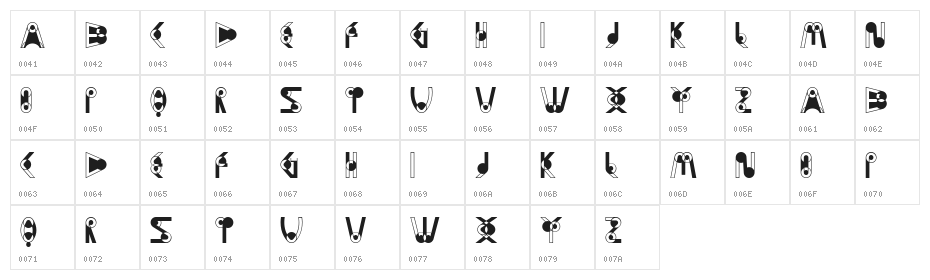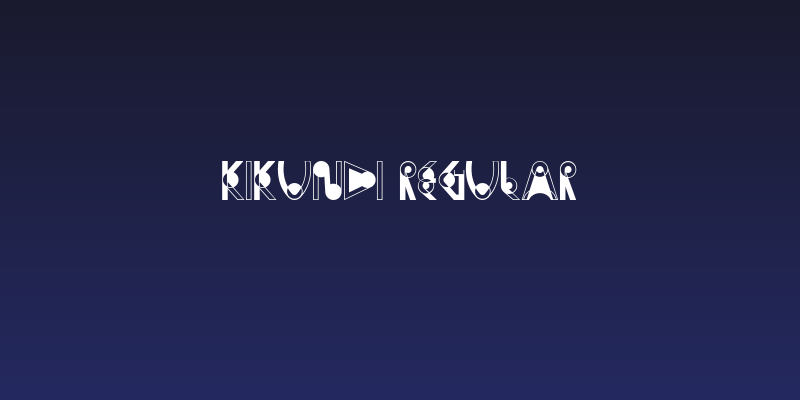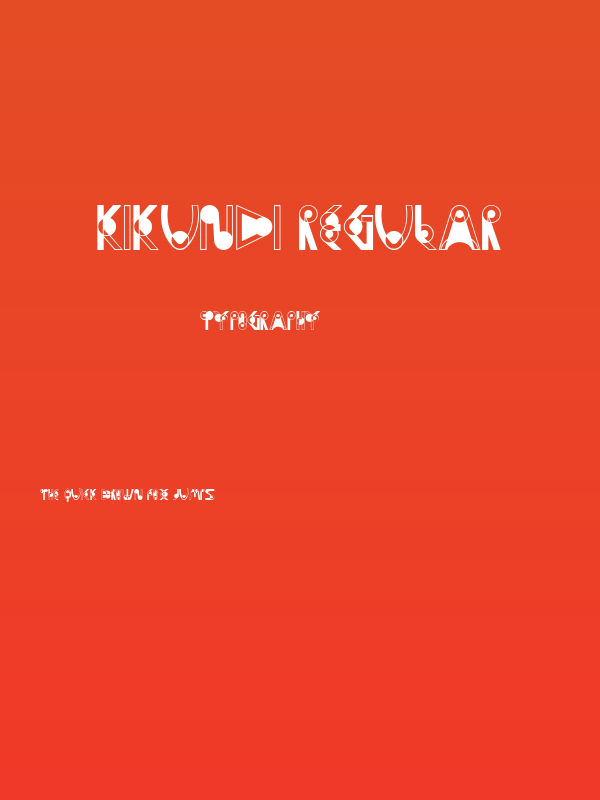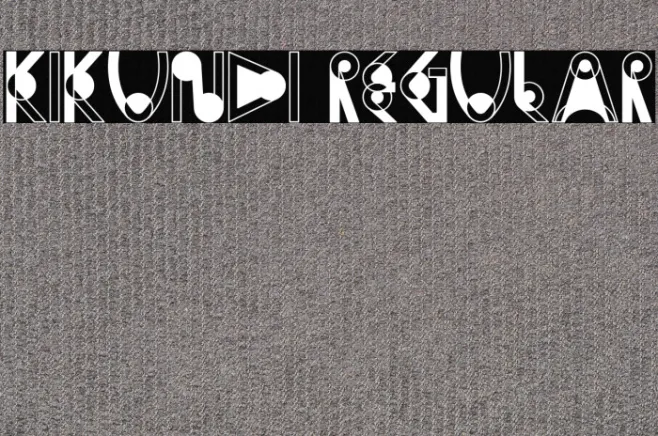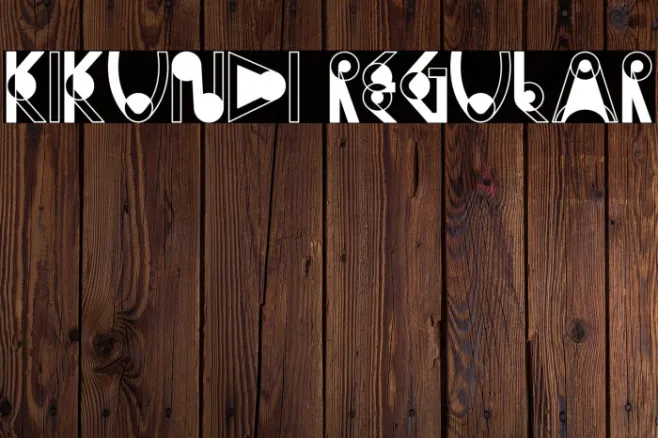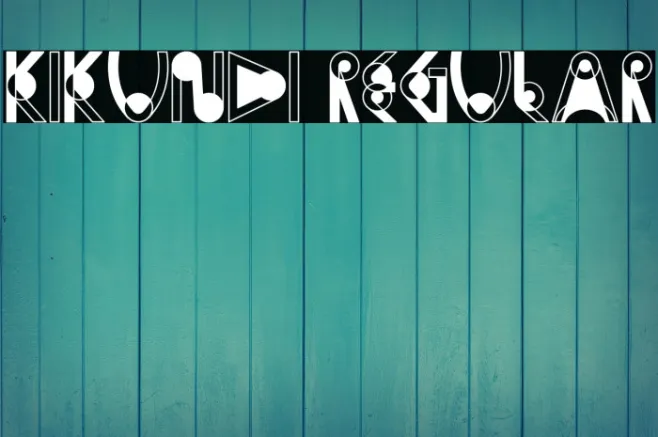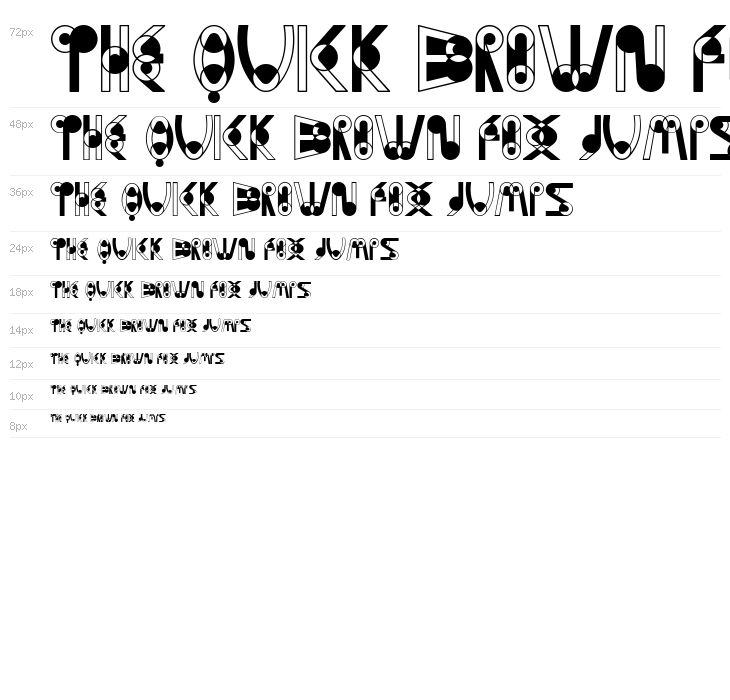
Kikundi Regular Font
Kikundi Regular Description
This font features a bold and geometric design with a playful and artistic flair. Each character is crafted with a combination of solid and outlined shapes, creating a dynamic and eye-catching appearance. The letters are constructed with a mix of circular and angular elements, giving them a unique and modern look. The use of contrasting black and white areas within each character adds depth and visual interest. This font is highly decorative, making it suitable for creative and expressive projects where a strong visual impact is desired.
| Proposed Projects | Ideal for posters, album covers, branding, and any project needing a bold visual statement. |